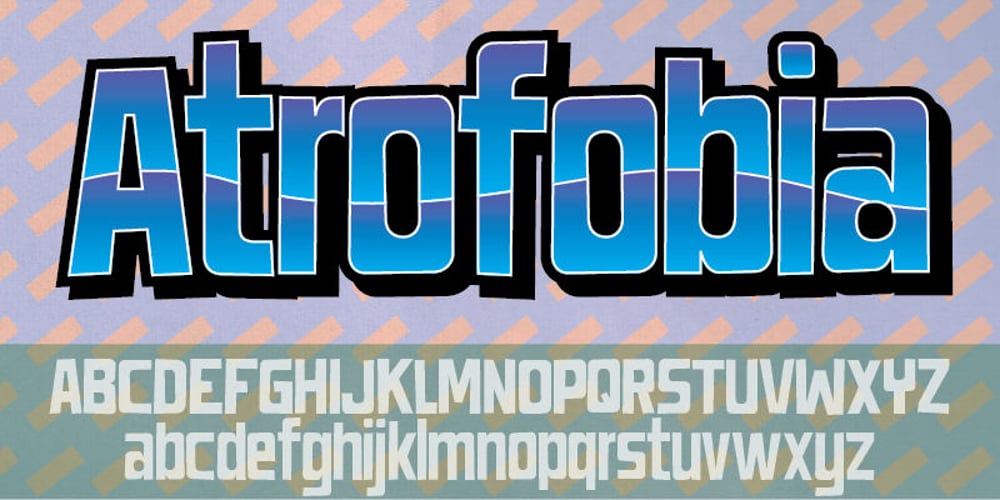
Atrofobia Font Family was designed by Jakob Fischer and published by PizzaDude.dk. Atrofobia contains 1 styles and family package options. An intentionally uneven, squarish and roundish sans serif font. Comes with a fi and fl ligature